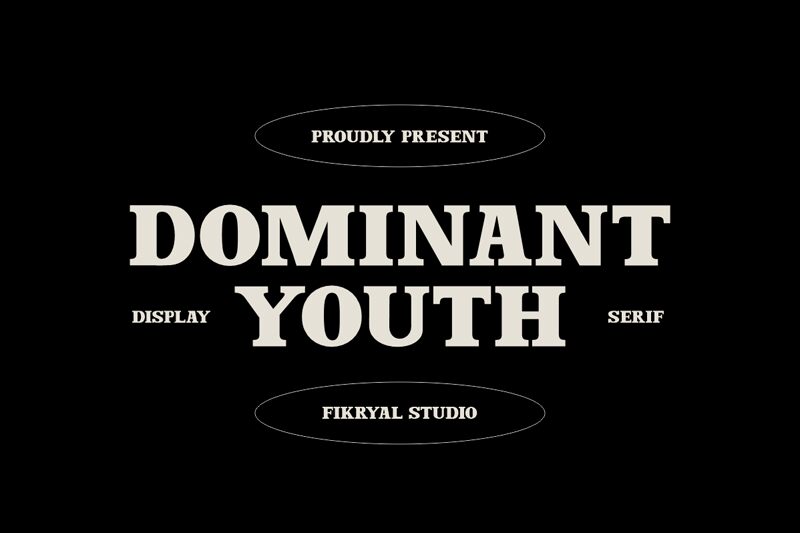
Dominant Youth
Dominant Youth font is a bold serif font from Fikryal Studio whose influence is a mix of classic and vintage styles. The all-caps typeface evokes authority, strength and presence thanks to its perfect shape symmetry. The letters use straight lines alongside square-like corners which adds to the overall commanding presence that the font offers.
Free for your projects, Dominant Youth is powerful in titles of movies and commercials related to serious topics such as war or action. It’s perfect as a logo for institutions or formal entities such as credit unions or schools whose aim is respect – this can also be reached by using it on cover designs, invitation cards, advertising banners, etc.